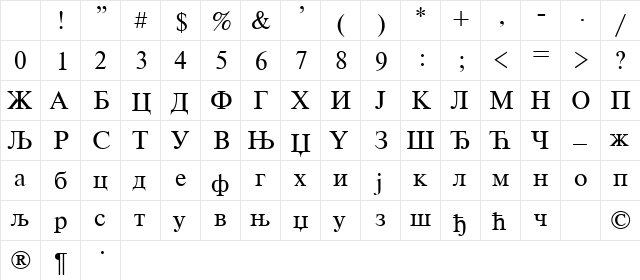
Times Roman Cirilica Regular
Times Roman Cirilica Family
Times Roman Cirilica Regular
Design Context for Times Roman Cirilica
Times Roman Cirilica is a composed and adaptable typeface that performs quietly and consistently across a wide range of design contexts.